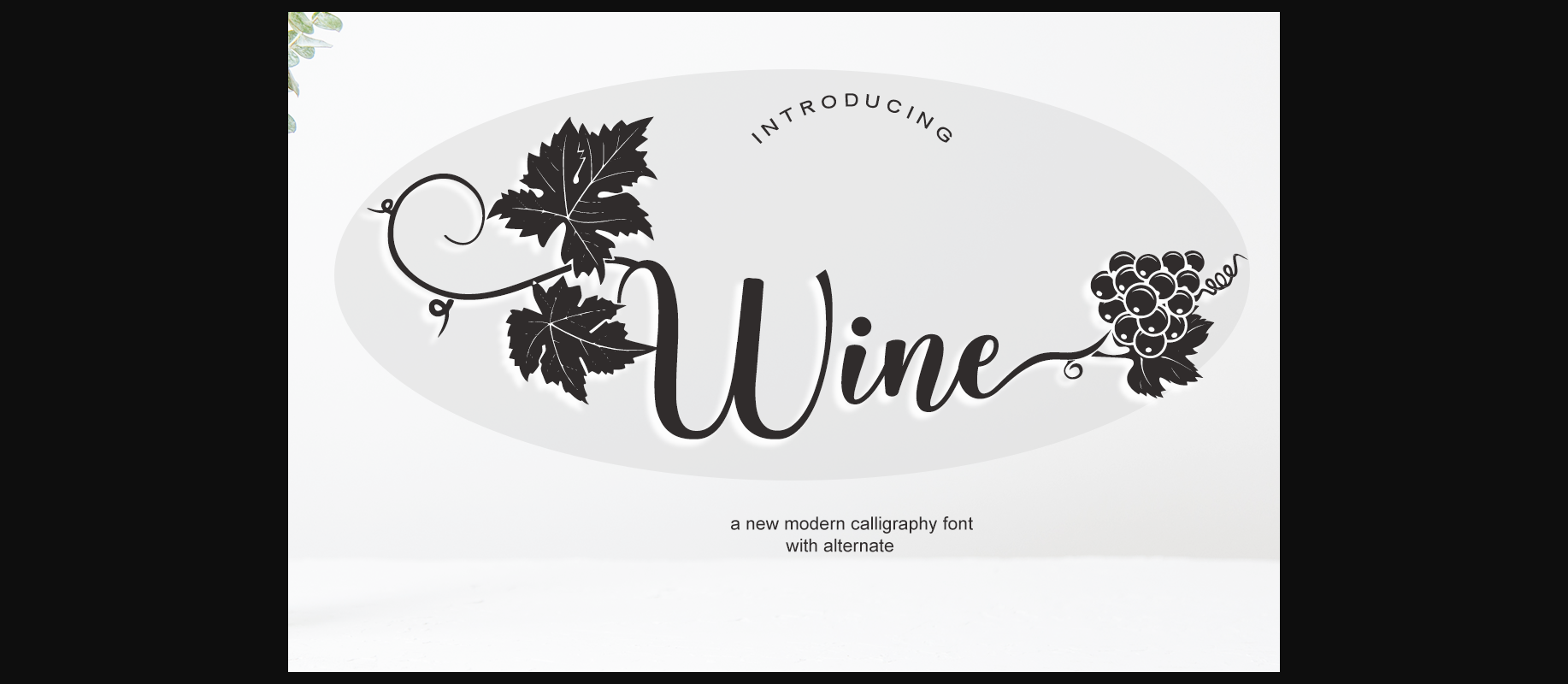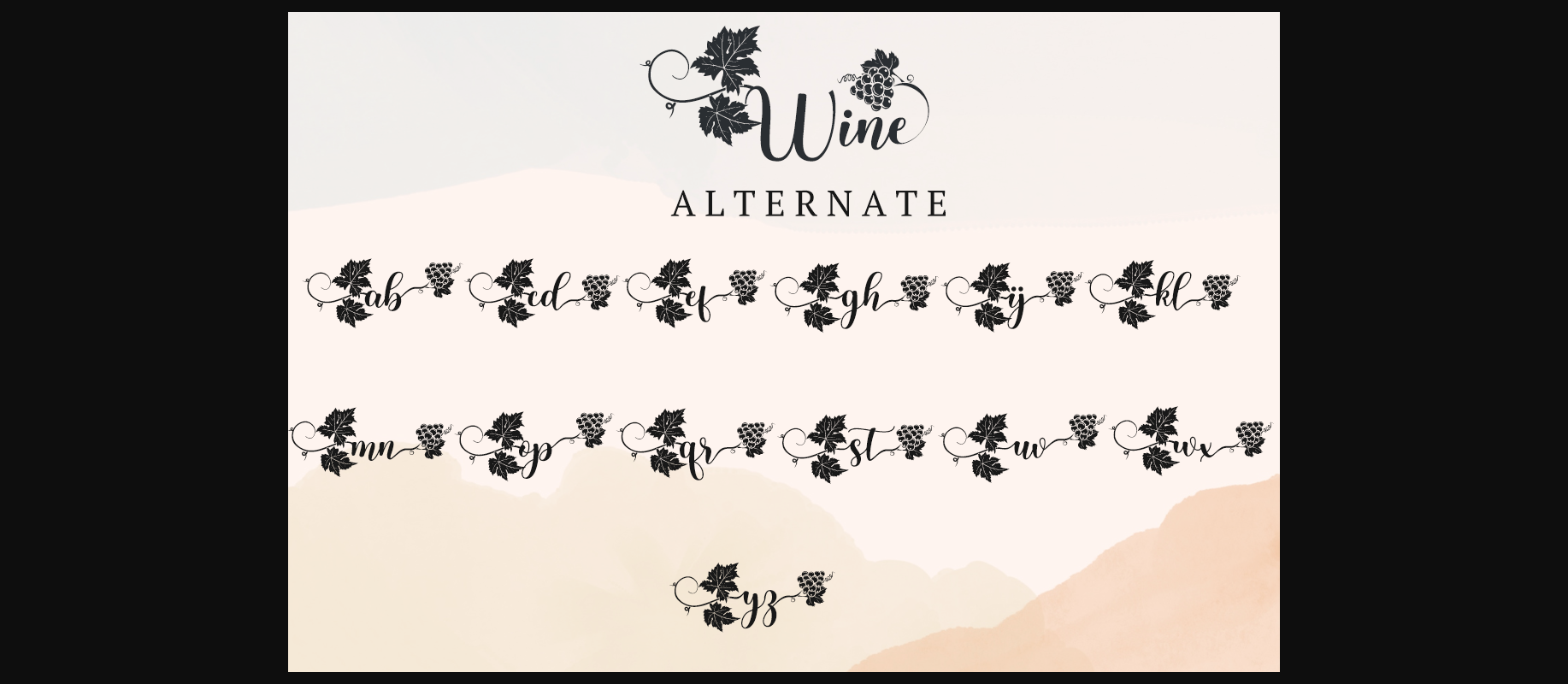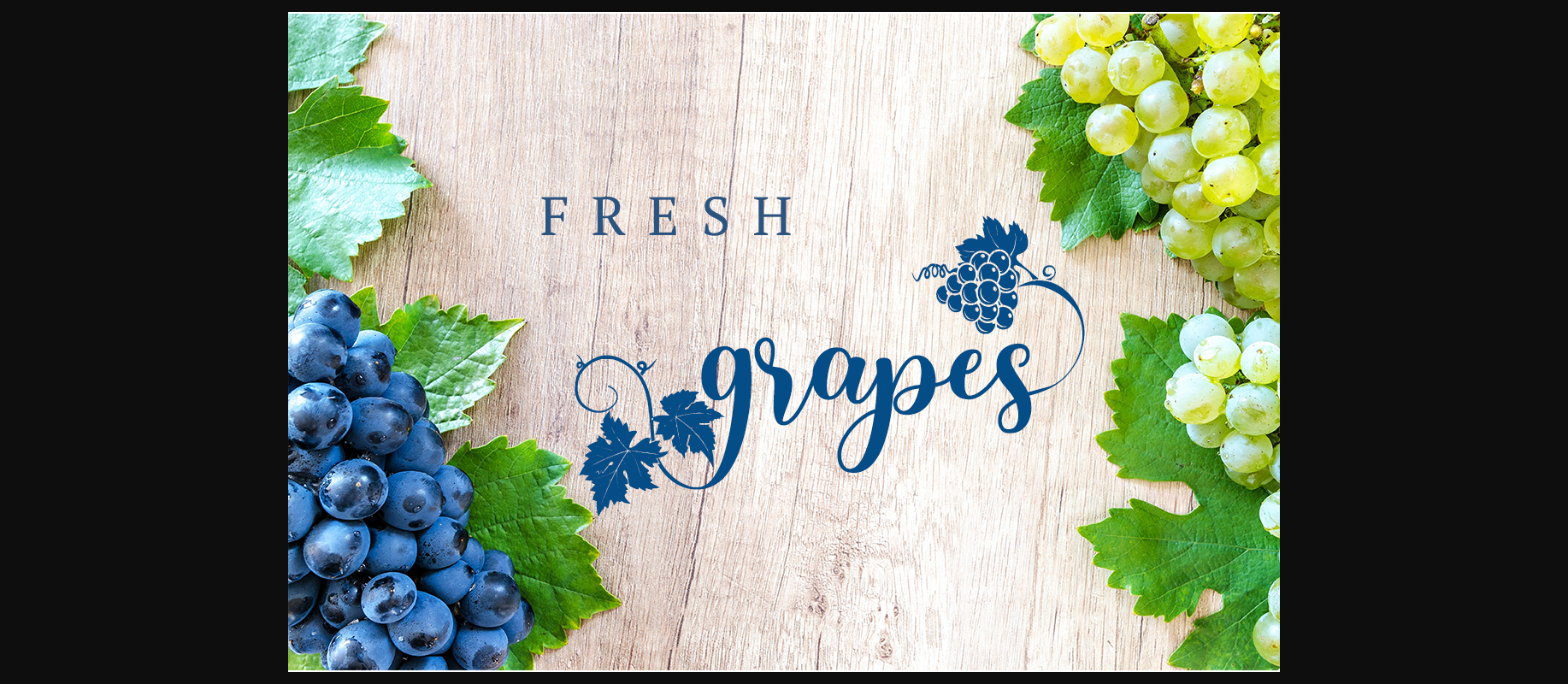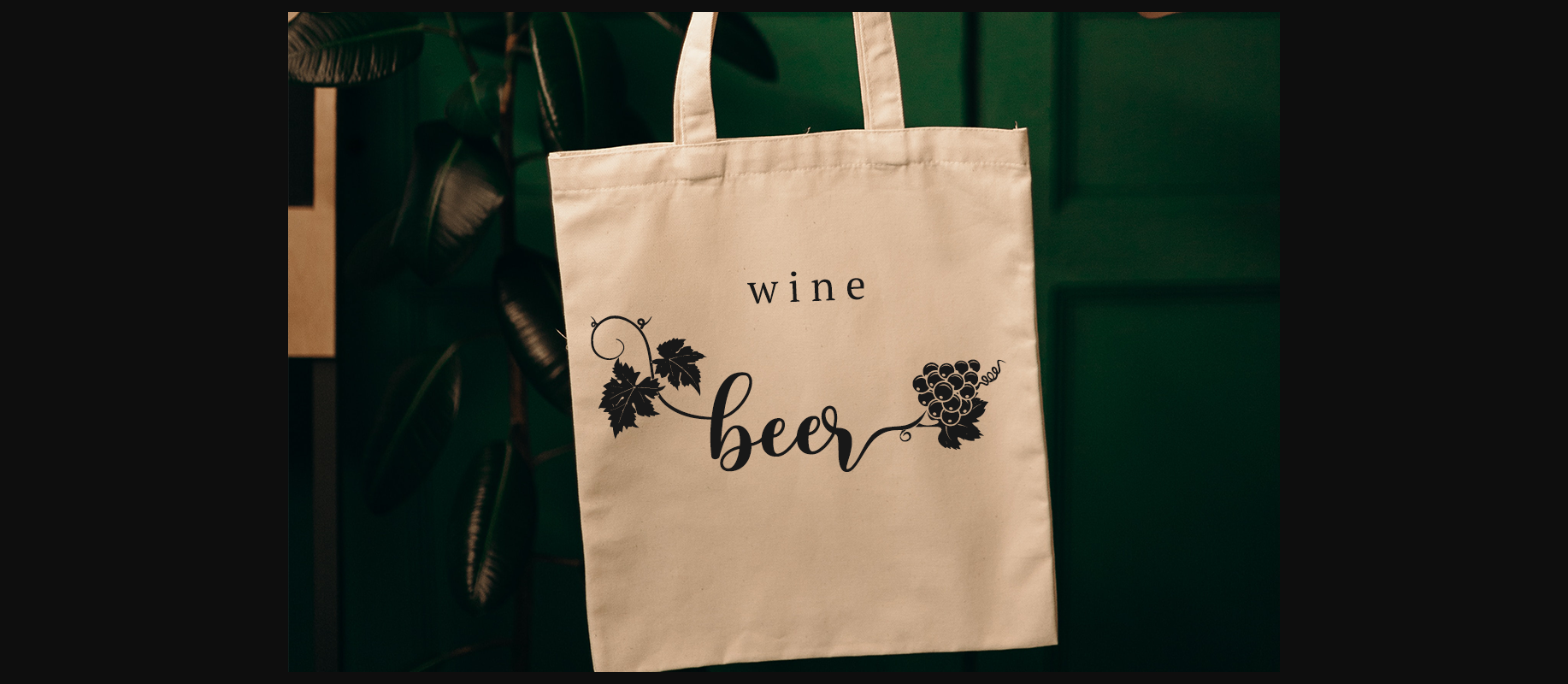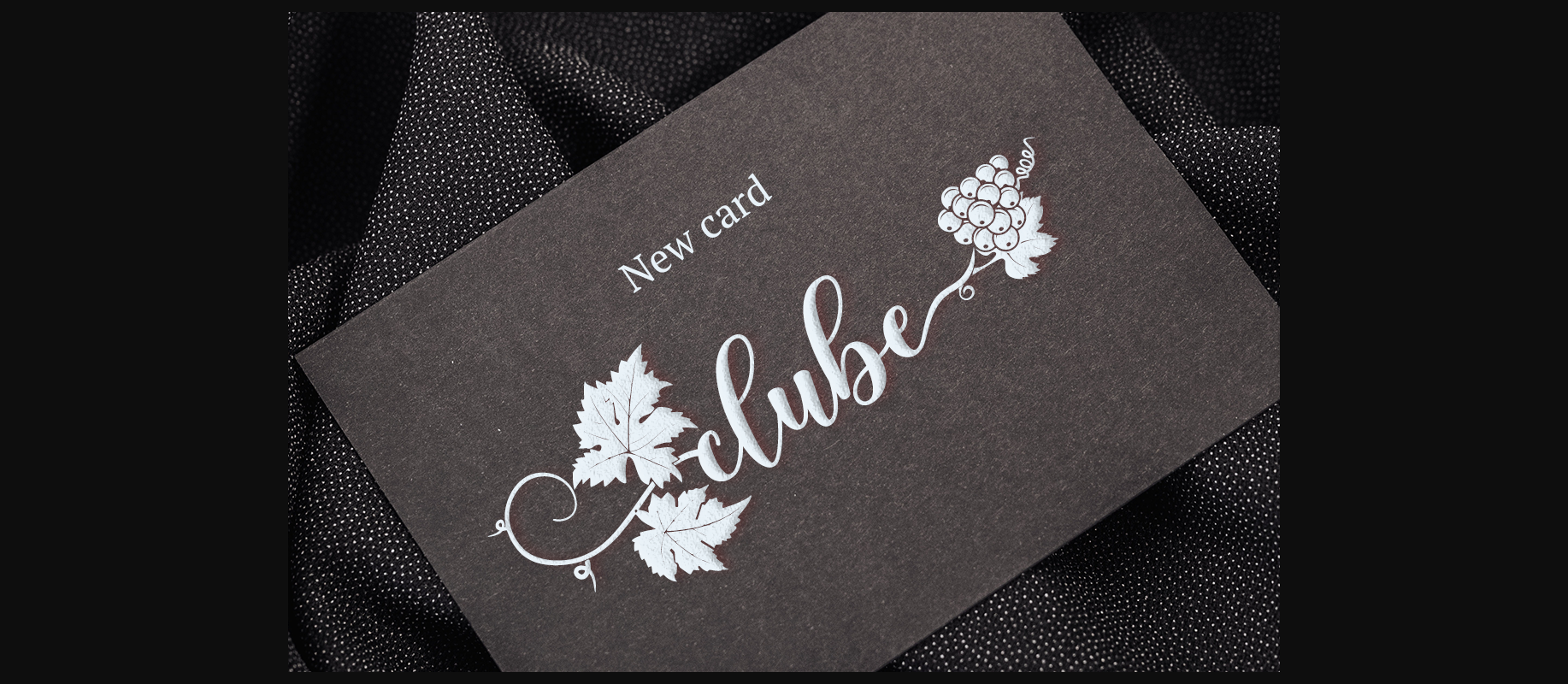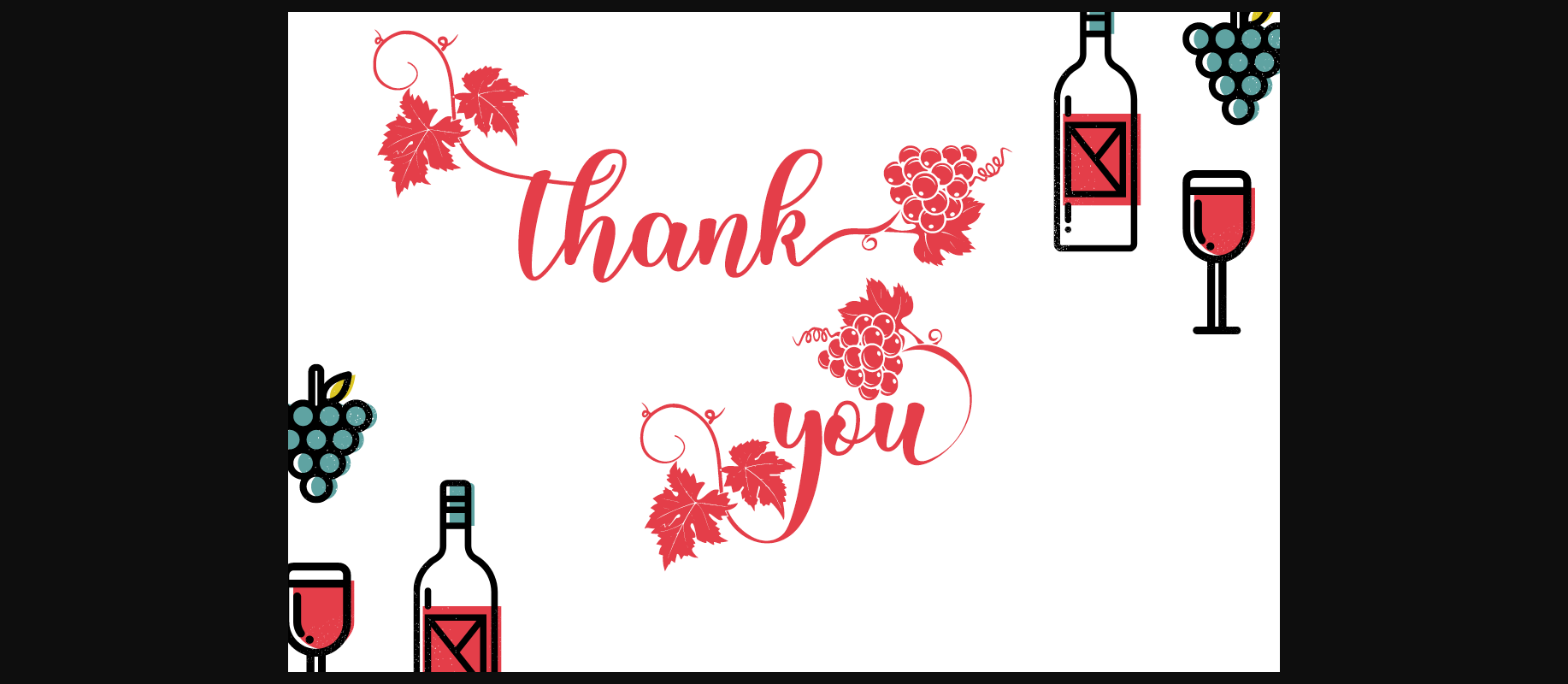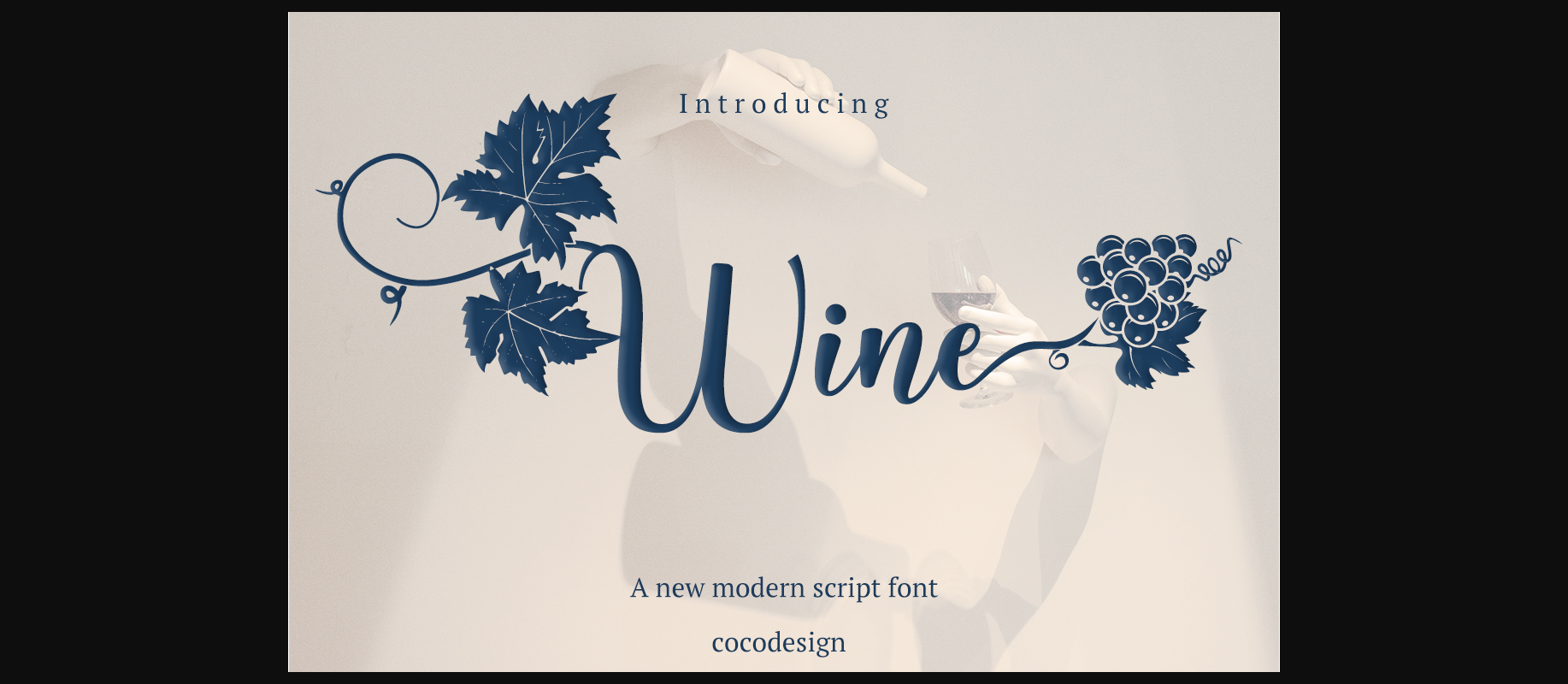
Wine Font
About Wine Font
Wine is a modern calligraphy design, with decorative vines. This font is casual and beautiful with swash. Can be used for various purposes. such as logos, product packaging, wedding invitations, branding, headlines, signage, labels, signatures, book covers, posters, quotes, and more.